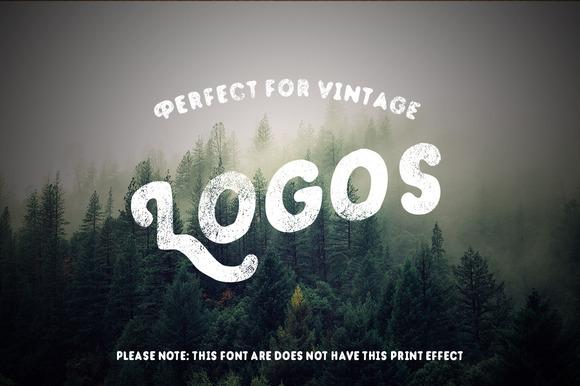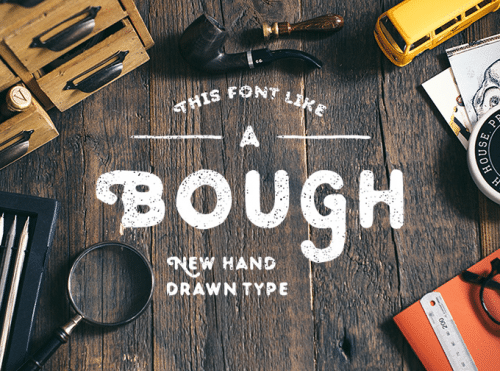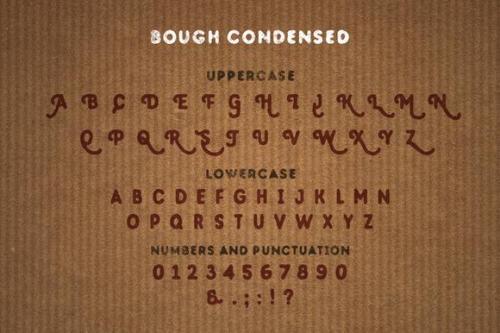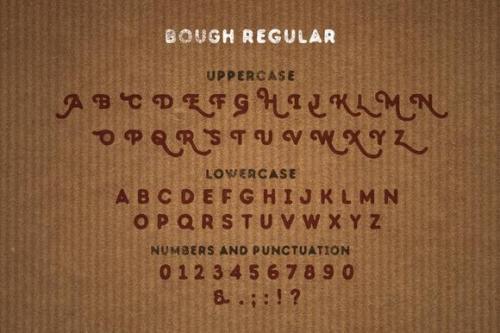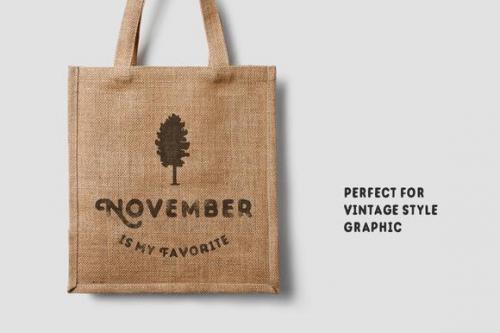
Bough – Vintage Hand Drawn Typeface
Nice to show you this cheap vintage font. It’s really good for vintage logo’s, prints or cards, web design, posters or anyway what you want to be “retro”.